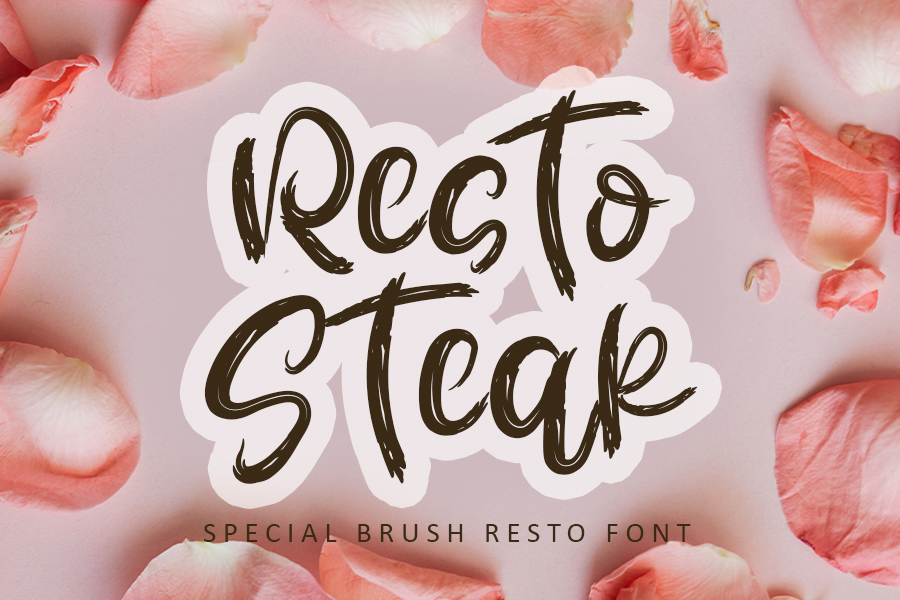
Resto Steak Font
Resto Steak Font is an elegant and bold display font, carefully handcrafted to become a true favorite. This font will look outstanding in any context, whether it’s being used on busy backgrounds or as a standalone headline!